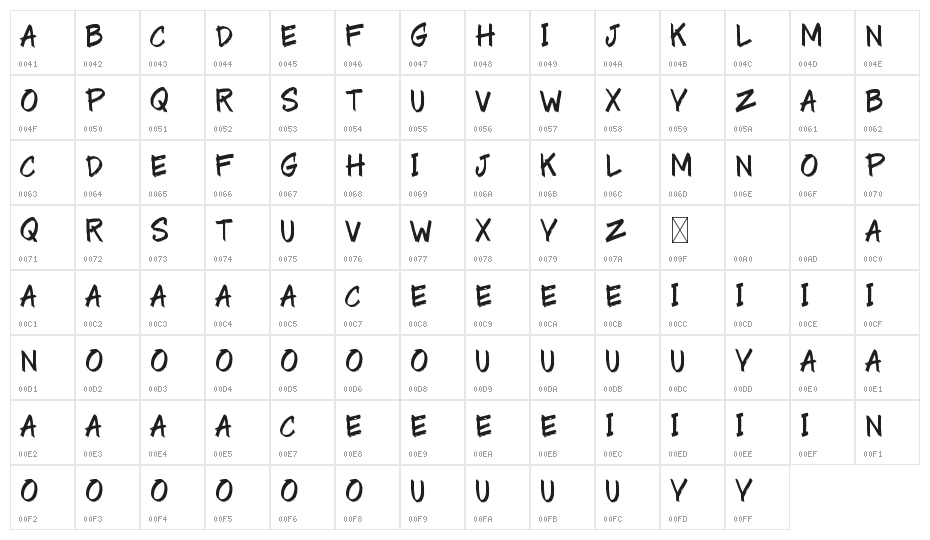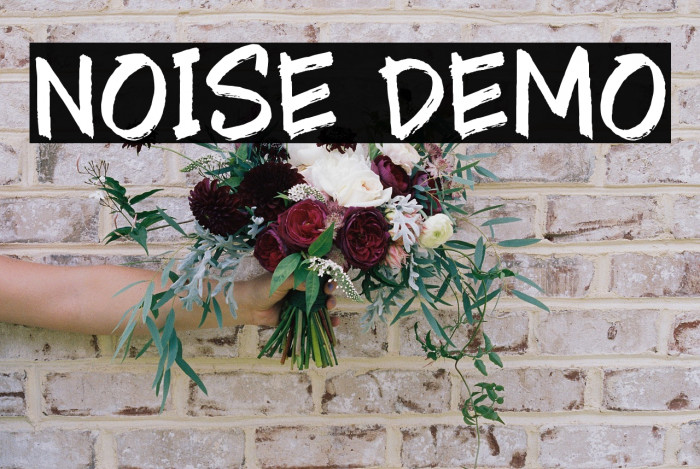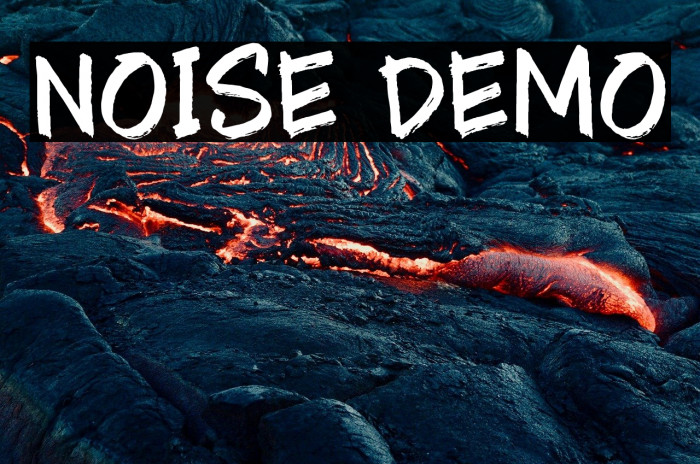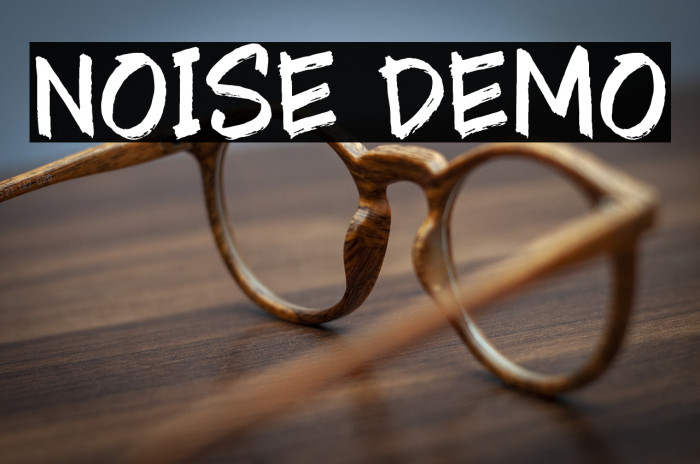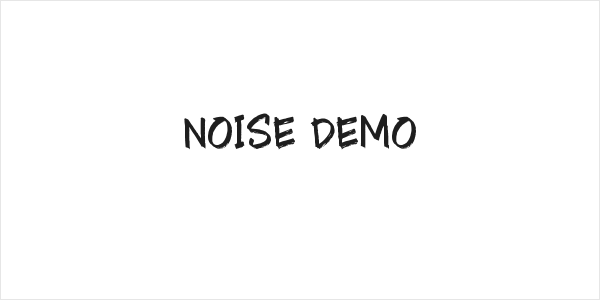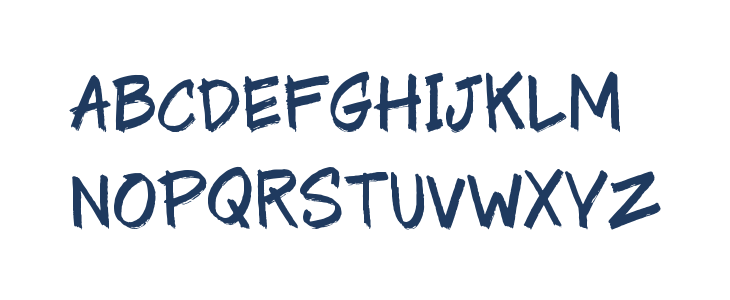
Noise Demo Font
Noise Demo Description
This font features a bold and dynamic handwritten style, characterized by its thick, uneven strokes and slightly rough edges. The letters exhibit a casual, energetic feel, with a slight slant that adds to its informal appearance. The uppercase and lowercase letters maintain a consistent style, with the uppercase letters being more prominent and the lowercase letters slightly more compact. The numbers and special characters follow the same design principles, ensuring a cohesive look across all characters. This font's unique style makes it stand out, offering a playful yet assertive aesthetic.
| Proposed Projects | Ideal for projects that require a personal touch, such as greeting cards, posters, and creative branding. It can also be used effectively in social media graphics and informal invitations. |